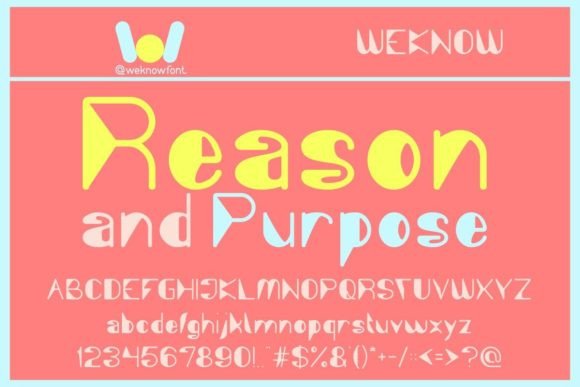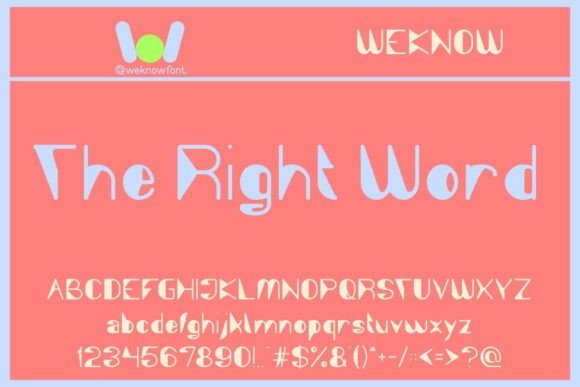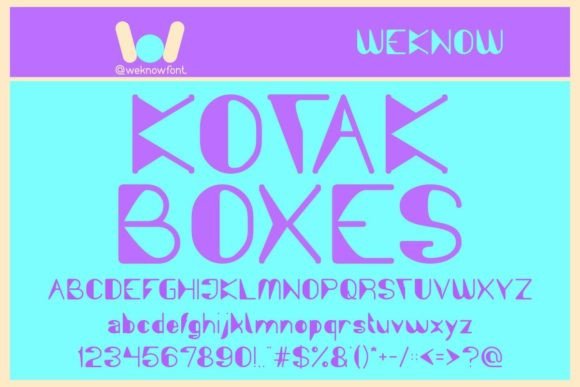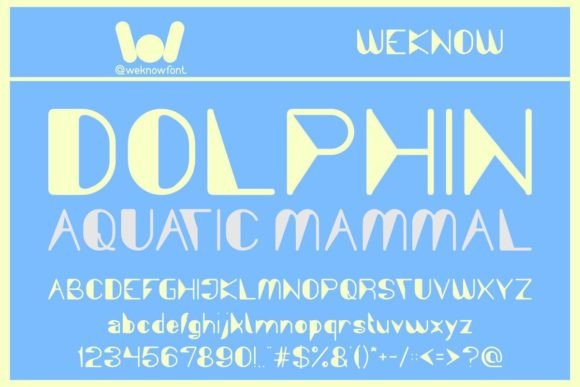
Introduction to Fashion Style Font
Have you ever stared at a blank page, wondering what would be the perfect font to capture the essence of your creative project? I know I have. The perfect font can make all the difference between a design that’s merely good and one that’s truly stunning. And that’s exactly what I’m excited to share with you today – a font that’s sure to elevate your designs: the Fashion Style Font.
This fancy and modern display font is not just a pretty face – it’s a valuable asset for designers looking to add a touch of sophistication and elegance to their work. Whether you’re creating a logo, a headline, or a brand identity, the Fashion Style Font is the perfect design resource to help you stand out from the crowd.
Key Features of Fashion Style Font
- High-quality design resource with a transparent background, ideal for creative projects and graphic design.
- Unique, stylish font with a modern and trendy aesthetic, perfect for fashion, beauty, and lifestyle branding.
- Includes multiple weights and styles, allowing for versatile use in various design applications, from headings to body text.
Honest Review: Fashion Style Font
As a designer, I’m always on the lookout for high-quality design resources to elevate my creative projects. Recently, I stumbled upon the Fashion Style Font, and I’m excited to share my honest review with you.
- High-quality design: The Fashion Style Font boasts intricate details and stylish typography that’s perfect for fashion-related projects.
- Limited customization options: While the font is stylish, I wish there were more customization options available to tailor it to specific design needs.
- Not suitable for all projects: The Fashion Style Font is best suited for fashion-related projects, so it may not be the best choice for other design areas.
Overall, I’m impressed with the Fashion Style Font’s high quality and versatility. While it has some limitations, it’s a valuable addition to any designer’s toolkit. If you’re working on a fashion-related project, I highly recommend giving it a try.
Tips for Getting the Most Out of Fashion Style Font
For the best results, use Fashion Style Font in conjunction with high-quality images and graphics. You can also experiment with different font sizes and styles to create a unique and eye-catching design.
Fashion Style Font is perfect for fashion bloggers, designers, and influencers who want to add a touch of style to their social media posts and websites. It’s also great for creating eye-catching advertisements and promotional materials.